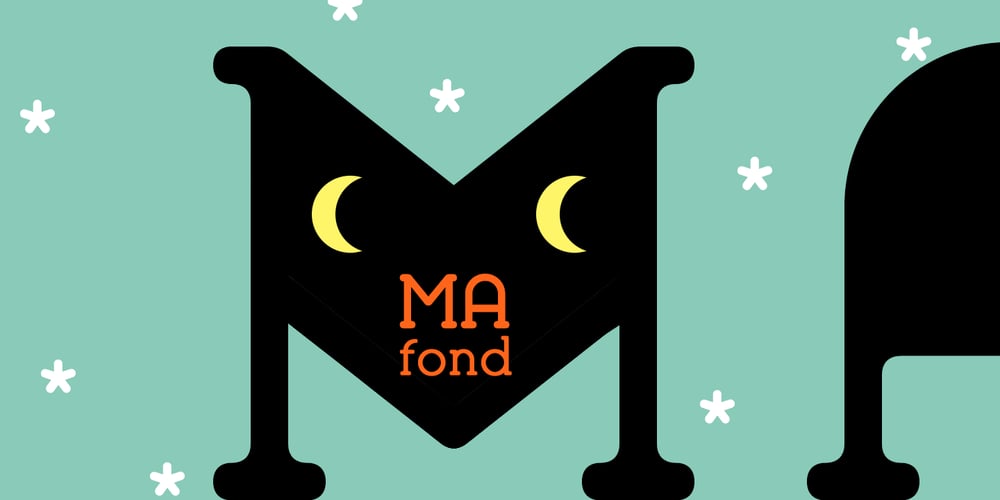
Mafond Font Family was designed by Alex Etewut and published by Etewut. Mafond contains 5 styles and family package options. Mafond is a fresh slab serif. It supports all european languages. The family is rounded as never before and includes 5 styles. Each of them has alternates for basic latin and a couple of ligatures. In case of success Mafond becomes Yofond.